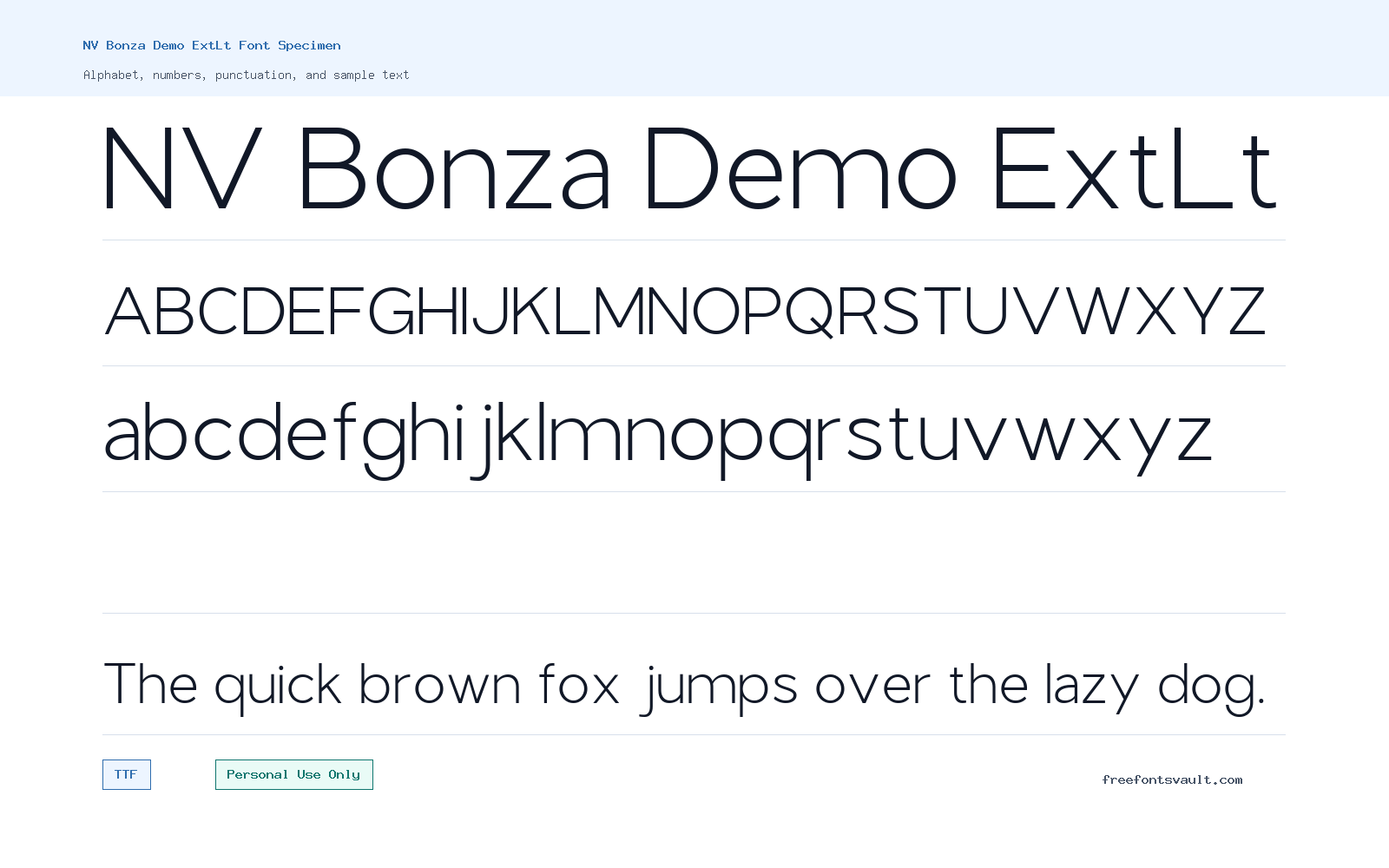
NV Bonza Demo ExtLt
- Designer Almer Muhammad Hafidz
- Foundry NovaraType
NV Bonza Demo ExtLt font.
NV Bonza Demo ExtLt is a light, clean sans serif demo font from the NV Bonza family. Its thin weight gives text an airy look, making it useful for visitors who want to test refined headings, simple branding mockups, and elegant short-form typography.
About NV Bonza Demo ExtLt Font
- Light 300-weight sans serif style suited to clean headings and short display text.
- Normal upright style for straightforward titles, labels, and interface-style mockups.
- Minimal website headers, portfolio titles, and landing page mockups.
- Elegant poster text, social media graphics, and short editorial headings.
- Brand concept drafts where a thin sans serif tone is needed.
- Large-size preview text where light strokes remain clear.
The designer is listed as Almer Muhammad Hafidz, and the foundry is listed as NovaraType.
For best results, test NV Bonza Demo ExtLt at larger sizes first. Pair it with a stronger body font if you need paragraphs, captions, or dense information. Keep backgrounds simple and contrast high, especially when using the font over images or colored panels.
What kind of font is NV Bonza Demo ExtLt?
It is a light sans serif demo font. The available file is a normal upright TrueType font with a 300 weight.
What is NV Bonza Demo ExtLt best used for?
It is best for short, clean display text such as headings, portfolio titles, social graphics, and concept mockups where a thin sans serif style is useful.